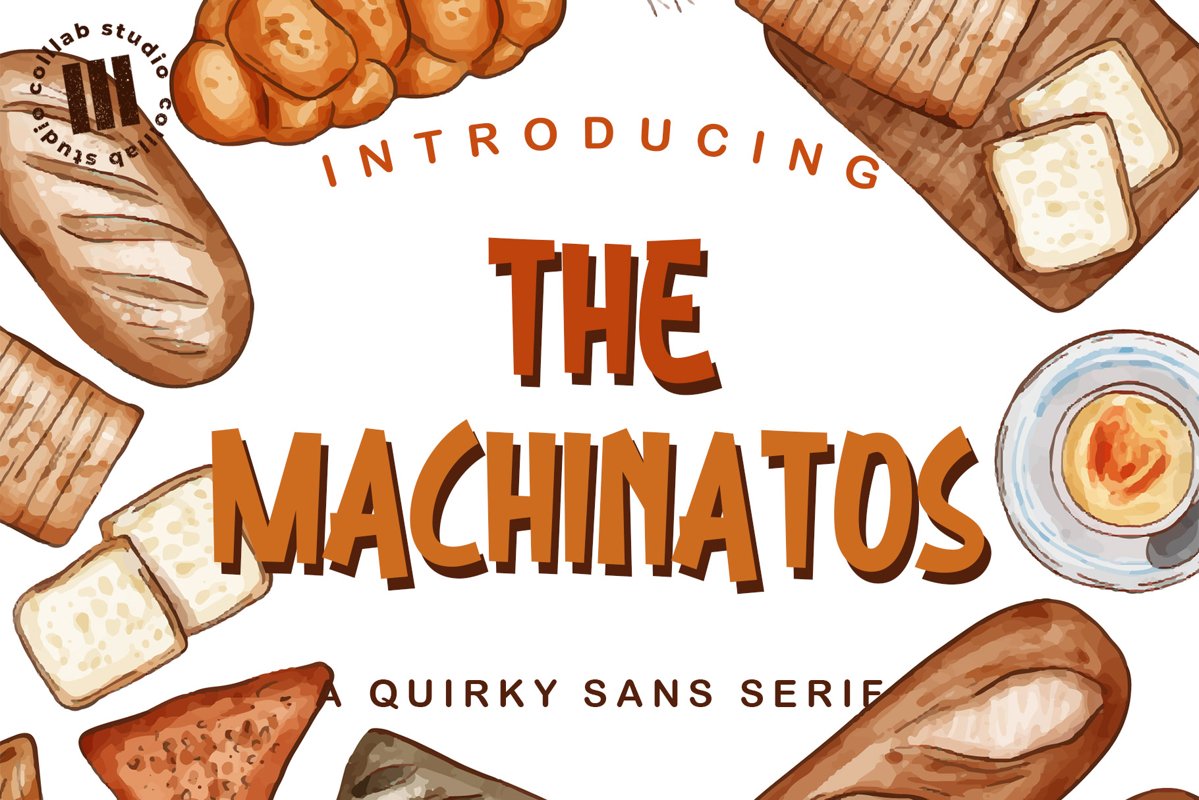
The Machinatos - A Quirky Sanserif Font
The Machinatos
The Machinatos is a quirky and bold sans serif font. Masterfully designed to become a true favorite, this font has the potential to bring each of your creative ideas to the highest level!